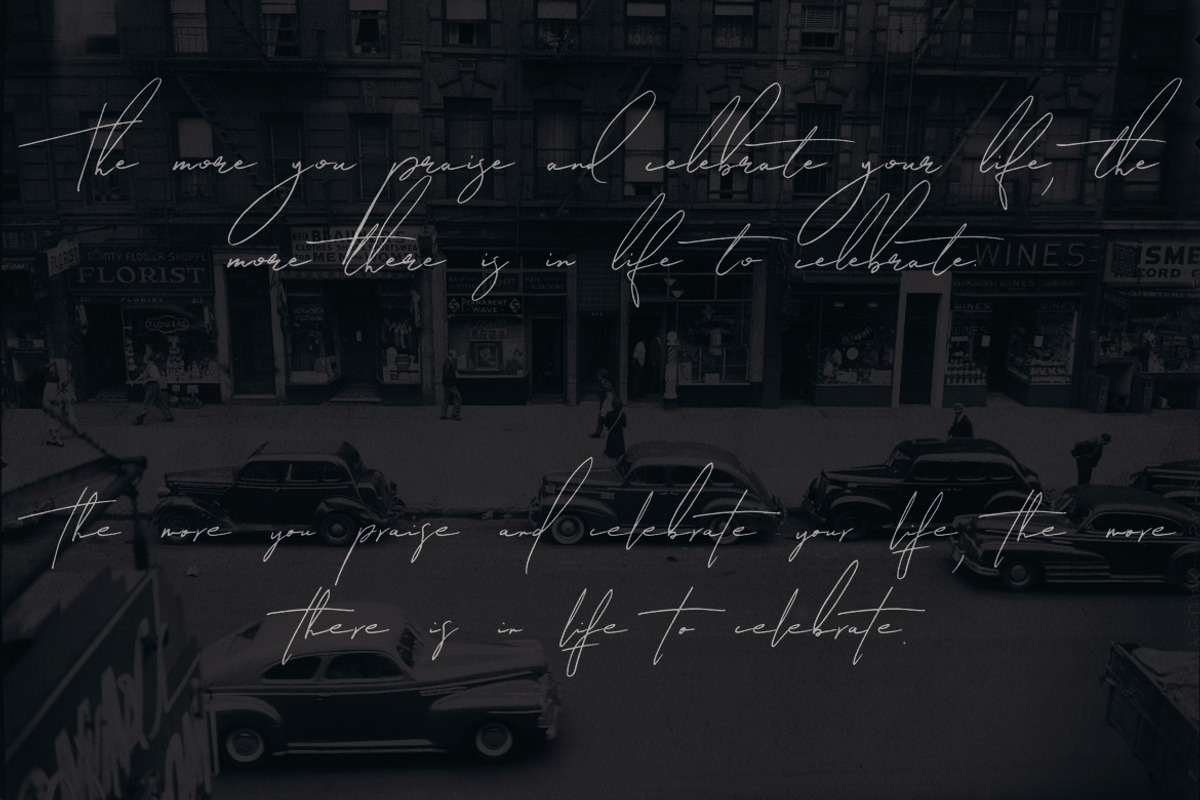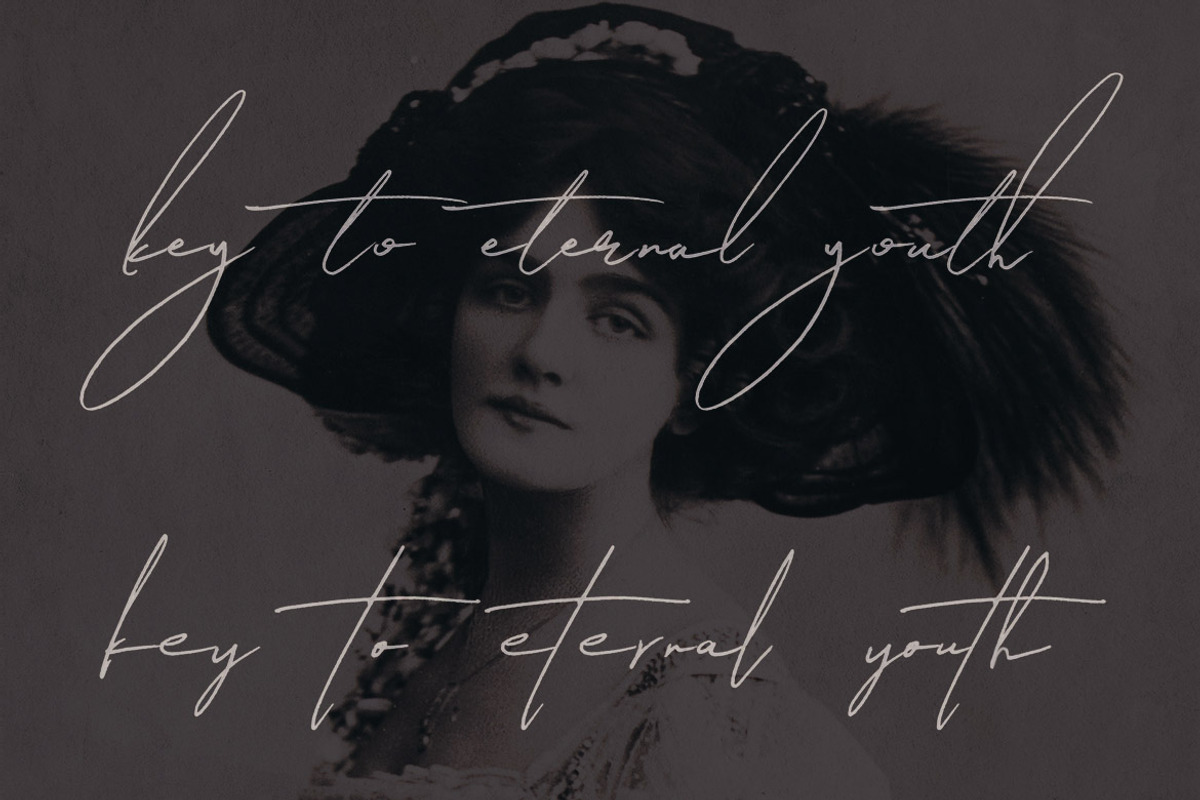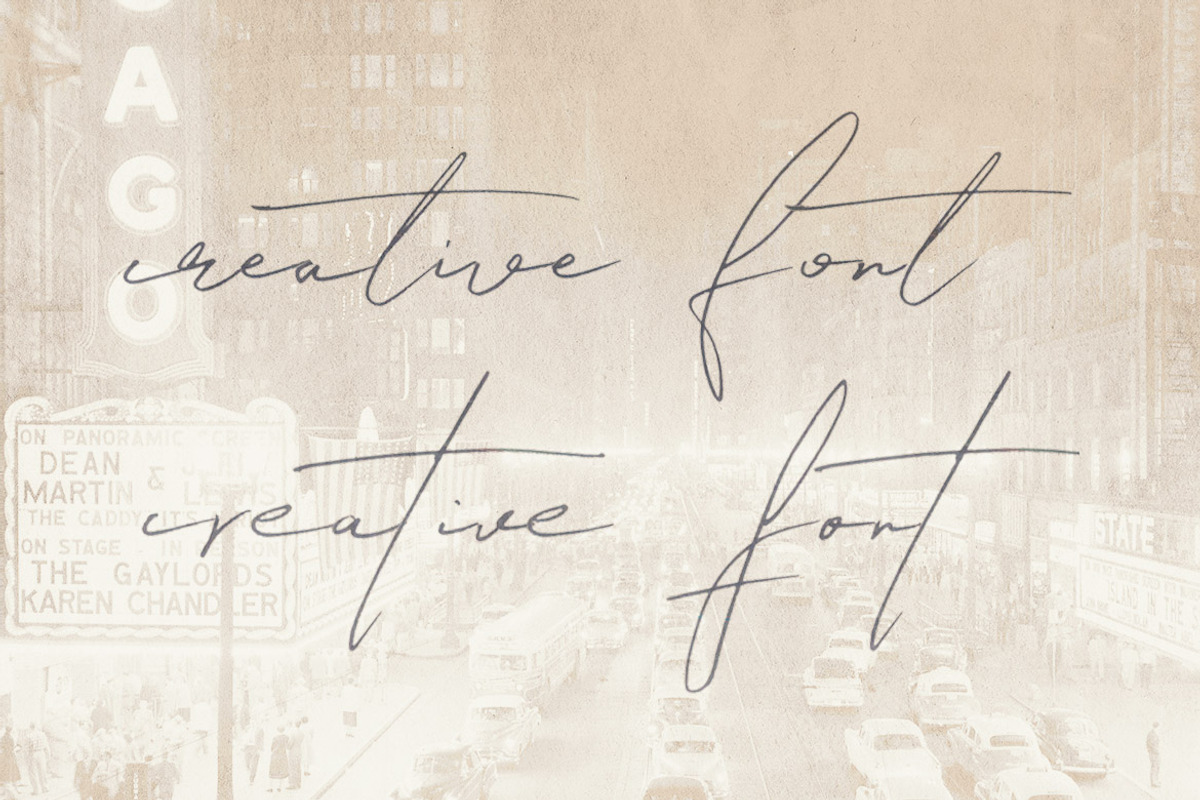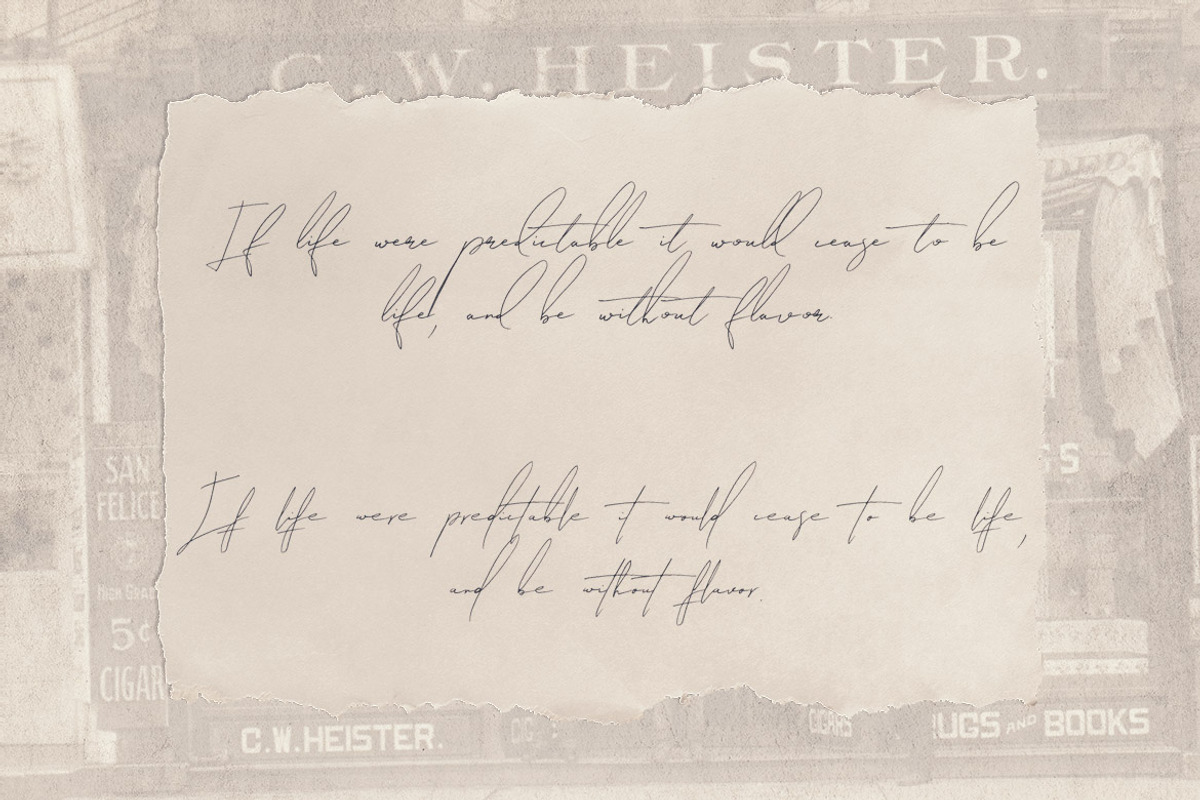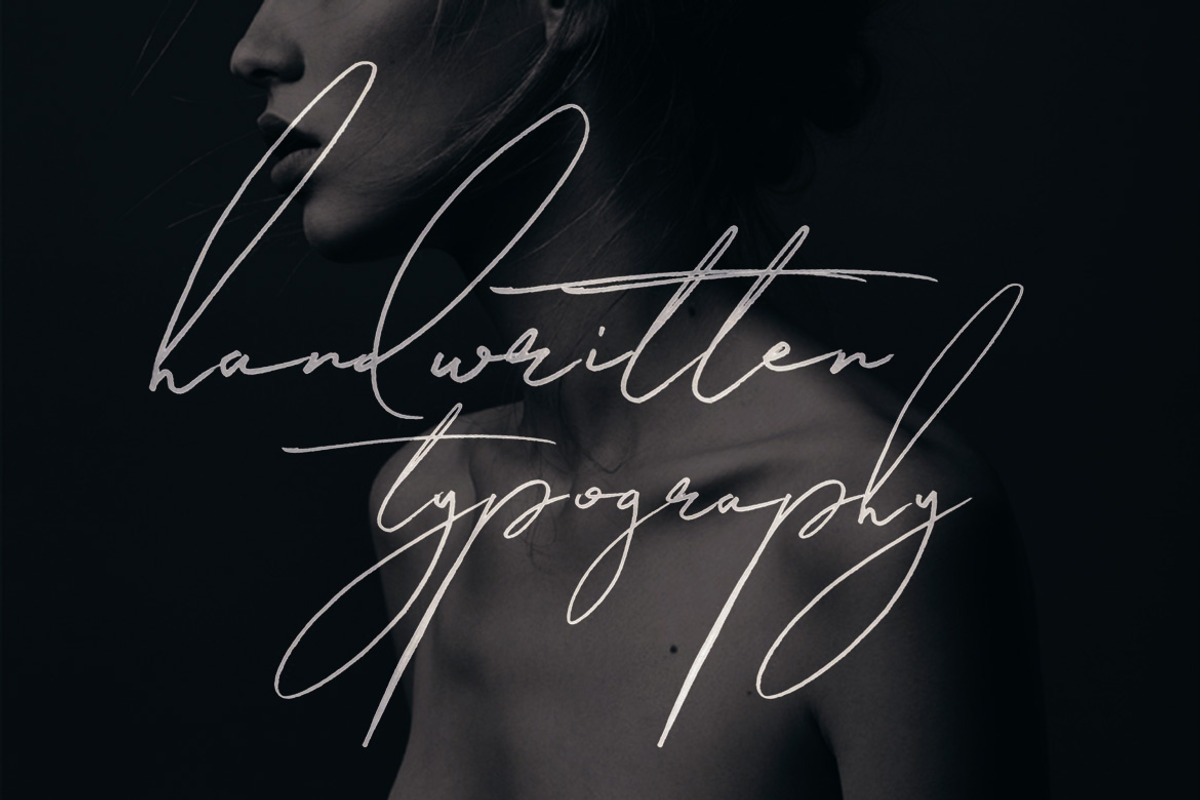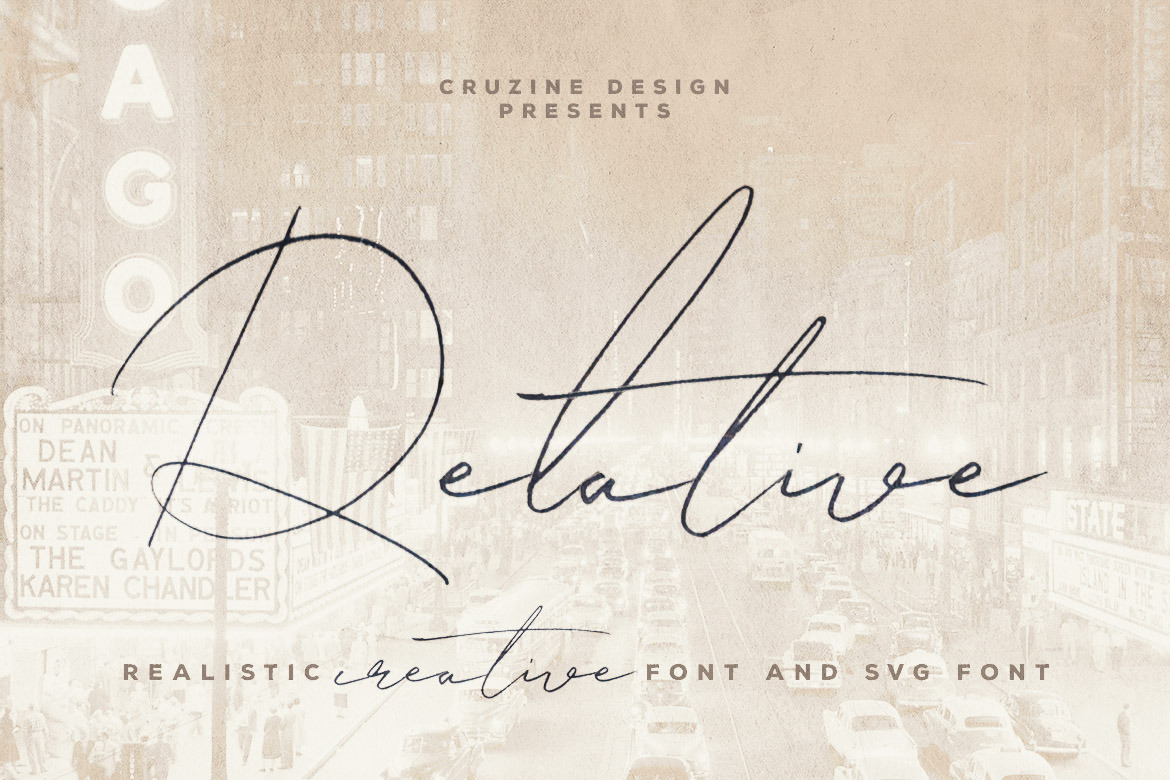
Relative Handwritten & SVG Font
Handwritten or grunge style script display font for your new projects. Great for vintage, grunge or artistic projects!